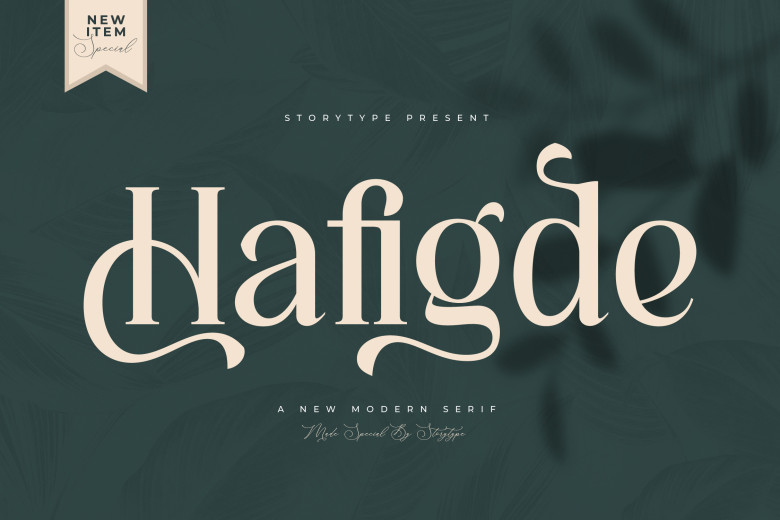
Hafigde Font
Modern serif font Hafigde is now released with many features–stylish and in a new way. It is tailor-made for fashion brands, clothing labels, online magazines as well as elegantlyexampleetc and at the right price to suit your budget. This This typeface for elegant and luxurious logo with complete include family price which is cheap affordable.
Hafigde Serif Font